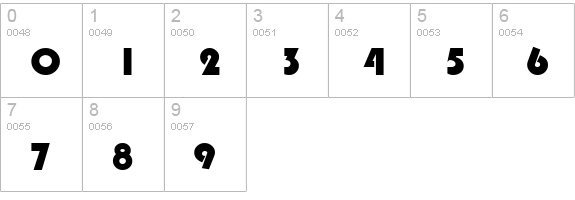
Blimpo Regular Font Details
Blimpo Regular is the standard, neutral variant in the Blimpo typeface family \xE2\x80\x94 well suited to general body text, paragraphs, and standard typographic work.
Blimpo Regular font is a versatile and stylish typeface that exudes a sense of modernity and sophistication. Its clean lines and balanced proportions make it perfect for a wide range of design projects, from branding to editorial layouts. The classic yet contemporary look of Blimpo Regular font will add a touch of elegance to any design. What sets Blimpo Regular font apart is not just its aesthetic appeal, but also the fact that it is available for free download at FontsMarket.com. This means that you can access this high-quality font without any cost, making it an excellent choice for both personal and commercial projects. With its wide range of glyphs and language support, Blimpo Regular font is sure to meet all your design needs with ease. Whether you are working on a logo, website, or print materials, Blimpo Regular font will help you achieve a professional and polished look. Download it for free today at FontsMarket.com and elevate your design projects to the next level with this exceptional typeface.